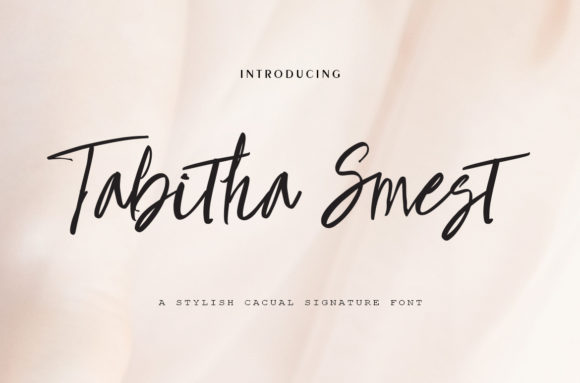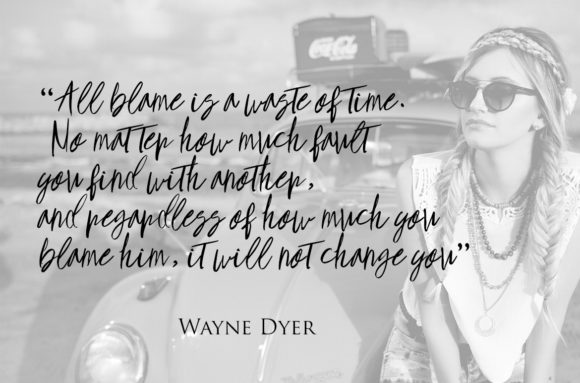
HomeScript FontsThabitha Smest Font Script Fonts Thabitha Smest Font FacebookXPinterestWhatsApp Thabitha Smest Font Poster 2 About Thabitha Smest Font TabithaSmest Script is a modern calligraphy font with a light feel. Get inspired by its casual coolness. DOWNLOAD NOW People also explored Rathella Font Mandala Font Winter Romance Font Laro Soft Font Wasatsh Font Farmhouse Font Madita Bettra Font Englebert Pro Dribelland Font 298 0 TagsThabitha Smest Font Previous articleSlatter FontNext articleLovas Script Font LEAVE A REPLY Cancel reply Comment: Please enter your comment! Name:* Please enter your name here Email:* You have entered an incorrect email address! Please enter your email address here Website: Save my name, email, and website in this browser for the next time I comment. Personal Use Free BD Geminis Personal Use Free Read more about this font Starry Cakes Personal Use Free Read more about this font Bestlife Personal Use Free Read more about this font Happy Santa Personal Use Free Read more about this font BLOG Top 10 Handwritten Fonts That Elevate Your Designs Top 10 Handwritten Fonts That Will Elevate Your Designs Handwritten fonts bring a warm, personal touch to every creative project. Whether you're designing logos, invitations,... To increase your work productivity, choose the most readable fonts. Where to Buy American Fonts Online in 2024 Top 7 Google Fonts Alternatives for Faster and Privacy-Friendly Web Design (2025)